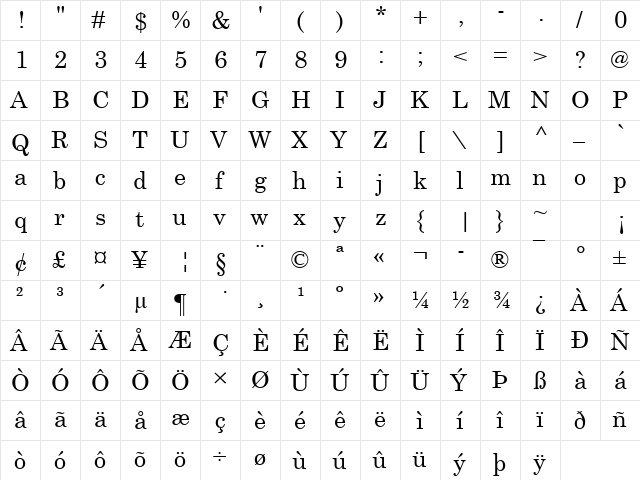
Century Regular
| Foundry | Monotype Typography, Inc. |
| Designer | Morris Fuller Benton |
Design Context for Century Typeface
Century takes a measured approach to typography — its balanced proportions and neutral character make it a reliable workhorse for both digital and print work.